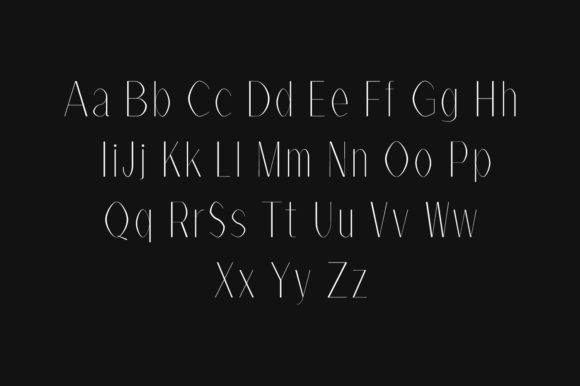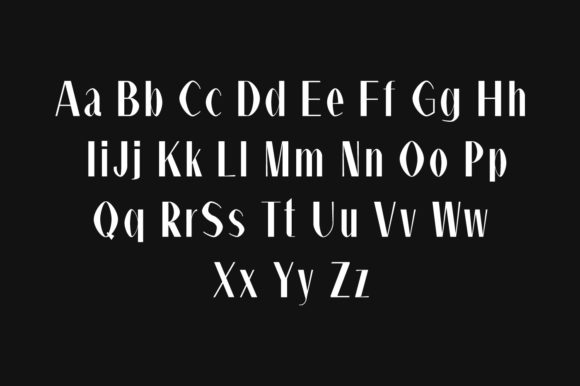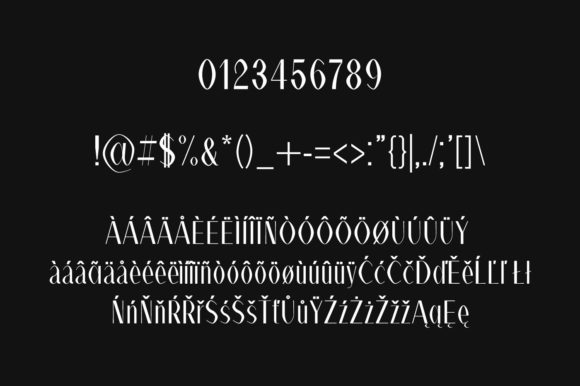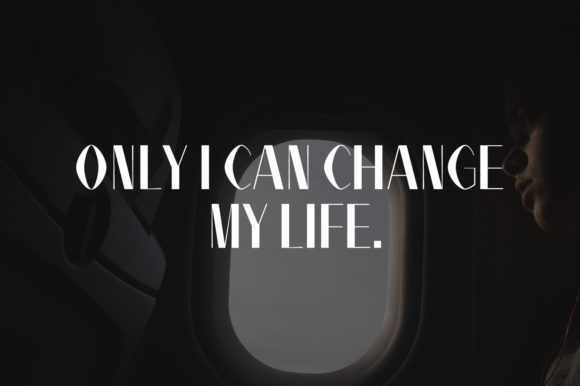
Discovering the Perfect Typography
Have you ever been stuck on a creative project, staring at a blank canvas, wondering how to bring your idea to life? We’ve all been there. But sometimes, all it takes is the right font to spark inspiration and set your imagination free. For designers and creatives, typography is a crucial element in making a lasting impression.
Enter the Alex Family Font, a modern sans serif typeface designed to elevate your projects and leave a lasting impact. With its beautiful and timeless characters, this versatile font is perfect for magazine covers, book covers, creative displays, logo designs, and many more creative projects. Whether you’re a seasoned designer or just starting out, the Alex Family Font is an invaluable addition to your toolkit, offering endless possibilities for self-expression and creativity.
Alex Family Font Key Features
- Font Family: Alex Family Font is a sans-serif font family designed for a modern and clean look.
- Character Set: The font includes a comprehensive set of characters, including Latin, Cyrillic, and Greek scripts, covering a wide range of languages.
- Unique Characteristics: The Alex Family Font features a distinctive x-height, carefully designed to provide excellent readability and legibility, making it ideal for body text and headings.
- Font Weight and Style: The font family includes 7 different font weights (Light, Regular, Medium, Bold, Extra Bold, Black, and Outline) and 3 font styles (Normal, Italic, and Oblique) to cater to diverse design needs.
Review of “Alex Family Font”
I recently had the chance to work with the “Alex Family Font” and overall, I have mixed feelings about it. Here’s my honest review:
- The font has a clear and legible design, making it suitable for body text in various contexts.
- The bold weight is well-defined, which helps in creating visual hierarchy and emphasizing important information.
- The font has a friendly and approachable feel, which can be beneficial for applications where a welcoming tone is desired.
- The font lacks distinctiveness, making it blend in with other sans-serif fonts. This can be a drawback if you’re looking for a unique visual identity.
- The italics and oblique styles are somewhat inconsistent, which may cause issues in certain design contexts.
- The font doesn’t have a wide range of weights or styles, which can limit its versatility in complex design projects.
Overall, while the “Alex Family Font” is not without its strengths, it falls short in terms of distinctiveness and versatility. If you’re looking for a reliable, easy-to-read font, it may be a suitable choice. However, if you need a font that makes a statement or offers a wide range of customization options, you may want to consider alternative options.
Introduction to Alex Family Font
Here are some tips for getting the most out of the Alex Family Font:
- Use the font in combination with other elegant fonts for a sophisticated look.
- Use the font in headings and titles to add a touch of elegance.
The Alex Family Font is ideal for:
- Business cards and
Alternatives to Alex Family Font
Montserrat is a modern sans-serif font designed for digital media. It’s perfect for headlines, titles, and short paragraphs where legibility is crucial. Montserrat is a great alternative to Alex Family Font for its clean and minimalist aesthetic, making it ideal for digital interfaces, mobile apps, and websites.
Comparison: Montserrat has a more geometric and condensed feel compared to Alex Family Font, which has a more rounded and friendly appearance.
Inter is a geometric sans-serif font designed for digital media. It’s ideal for body text, paragraphs, and long-form content where readability is essential. Inter is a great alternative to Alex Family Font for its sleek and modern design, making it perfect for digital publications, websites, and mobile apps.